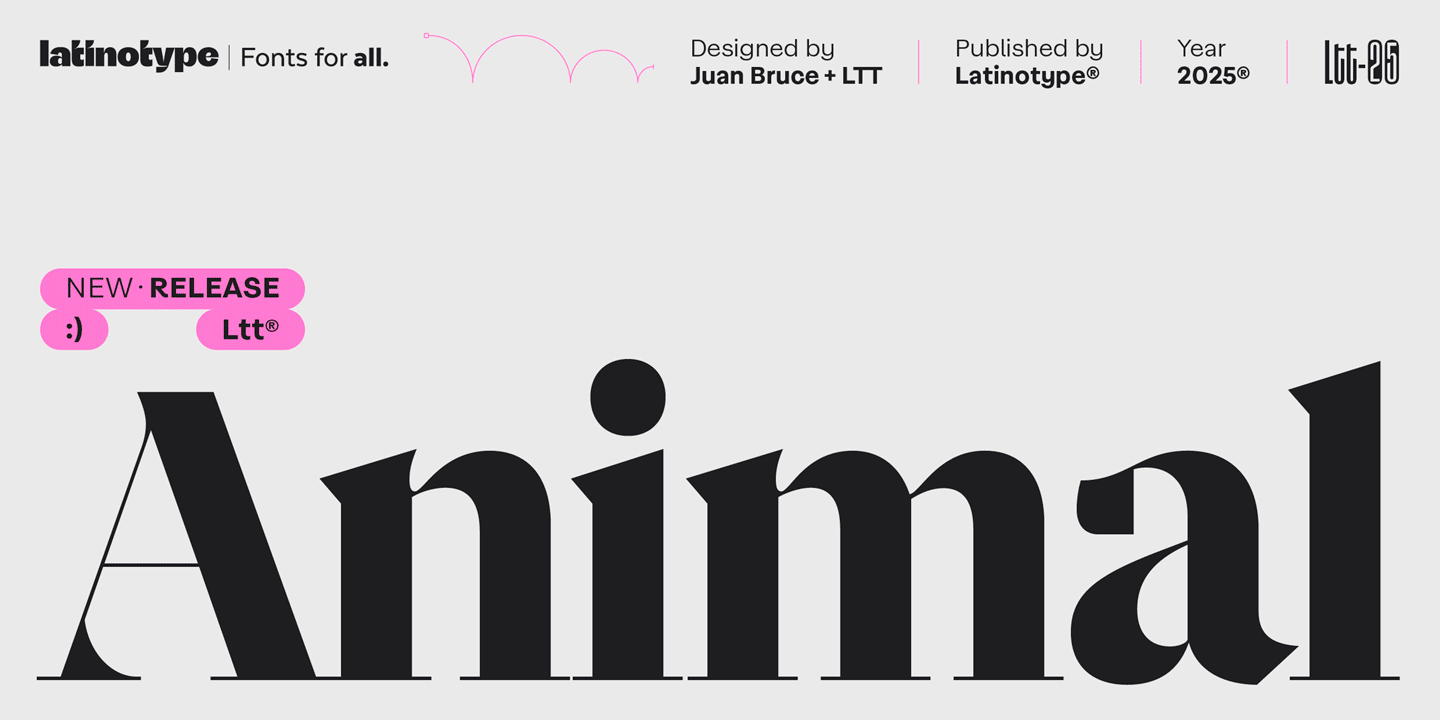
A Wild Typeface. Animal is a high-contrast serif with an untamed elegance. Its sharp details and striking forms create a look that's both bold and sophisticated—perfect for designs that demand attention. Drawing inspiration from the strength and balance of the animal kingdom, its dynamic structure blends fluid curves with dramatic contrasts. Unusual terminals and angular strokes lend Animal a distinctive, commanding presence. Designed for versatility, the family comes in four widths—Wide, Normal, Condensed, and Narrow—each offered in three weights: Regular, Bold, and Black. This flexible system makes Animal an expressive choice for branding, posters, fashion campaigns, bold headlines, and packaging. Animal moves with instinct. It's typography with teeth. “Animal, a wild luxury.” — Latinotype Special Introductory OFFER - 60% OFF 12 fonts for $149 $59.60 | |
Juan Bruce is a Chilean typographer and researcher. His passion for typography began after completing the Master's Degree in Typography Design at the University of Reading. Since receiving the degree in 2015 he has worked for companies such as Google, Monotype and Type Together, focusing his work on the design of Latin and Bengali typefaces, as well as research into the extinct Khojki alphabet and its typographic history. Special Introductory OFFER - 60% OFF 12 fonts for $149 $59.60 | |